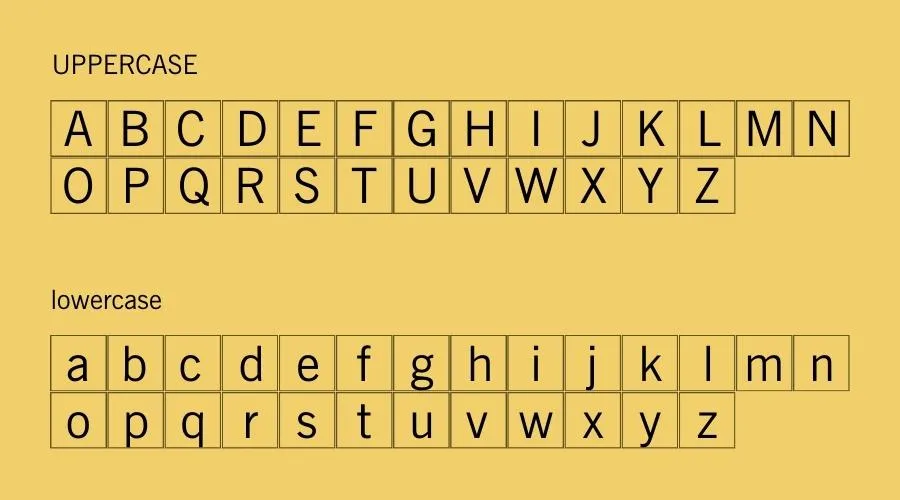
News Gothic Font
About News Gothic Font
News Gothic Font is designed by a famous graphic designer known as the name of Morris Fuller. You may easily get this stunning texture-free form here, this stunning texture belongs to the category of the sans serif texture family.
It is perfect for display purposes, you may easily read it in small size. This Font has also a large selection of alphabetic characters. This font contains various types of weights and styles such as bold, italic, and regular.